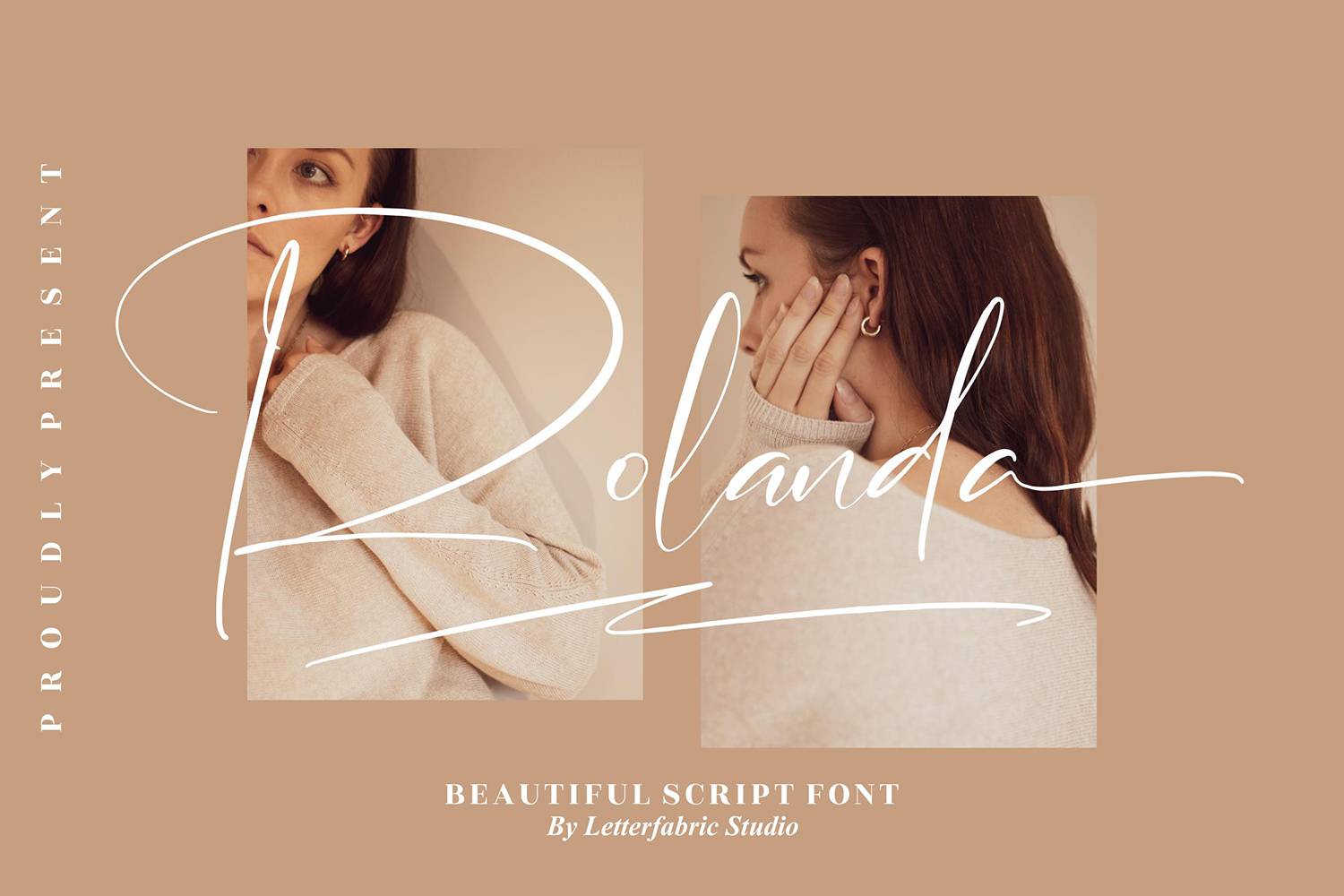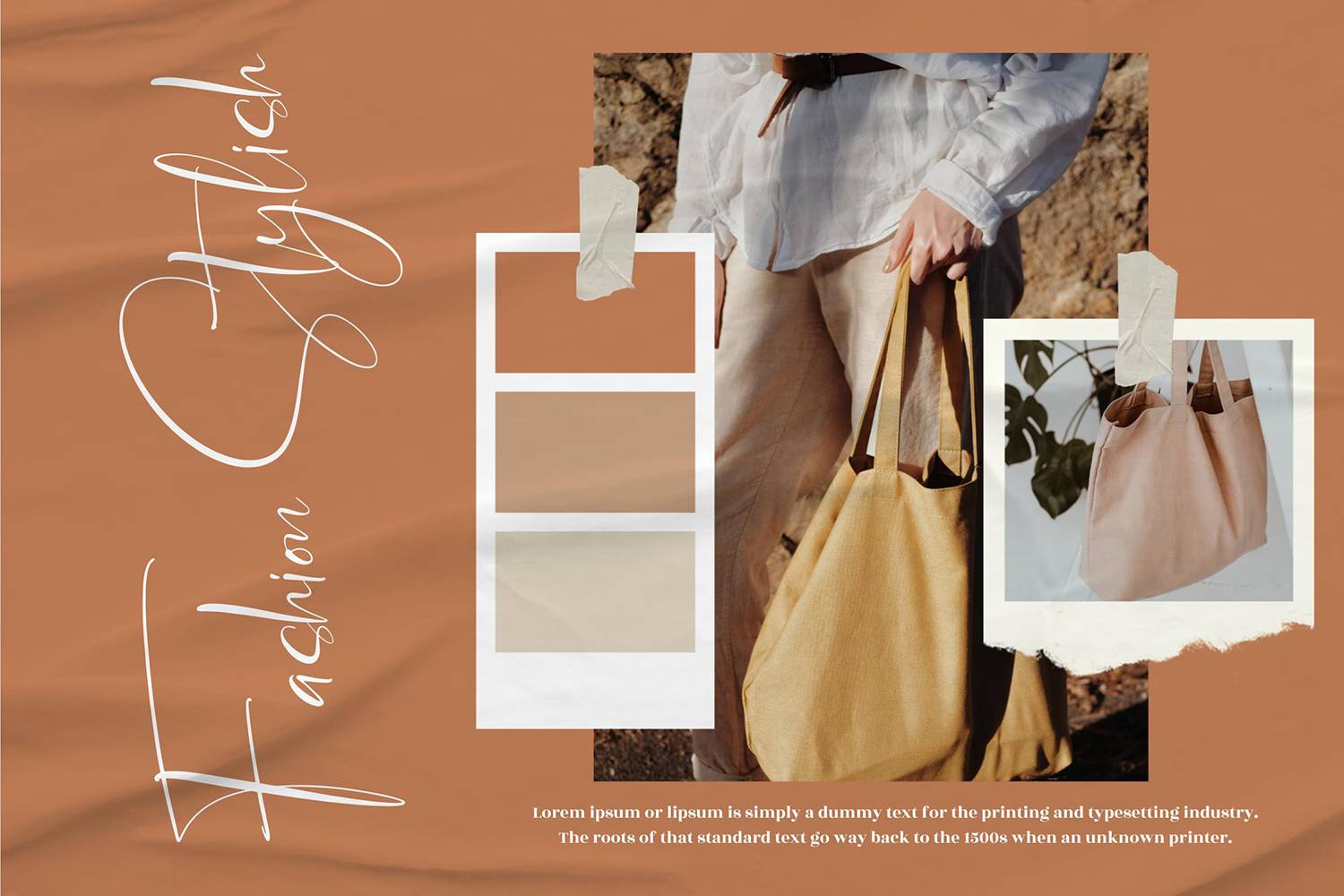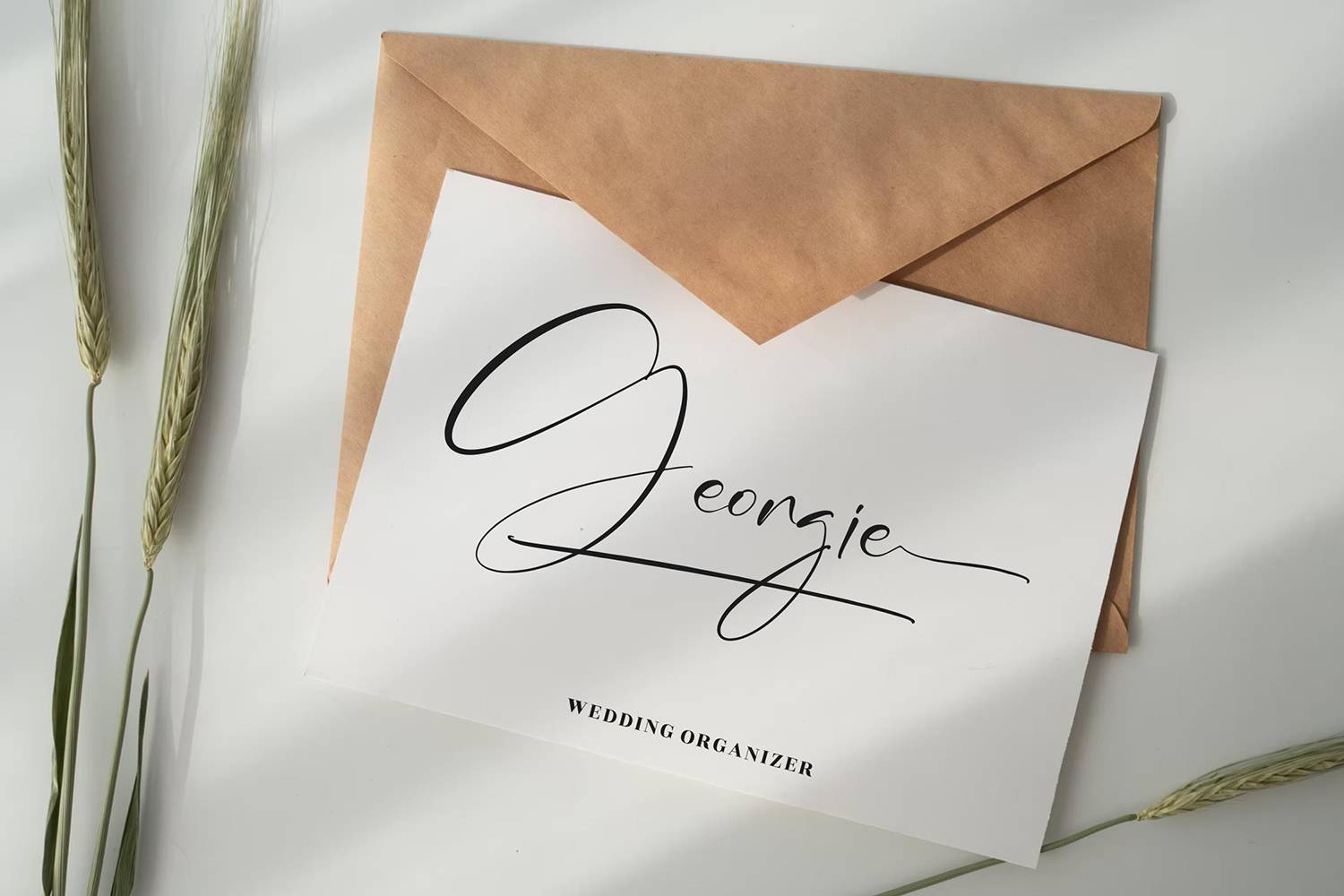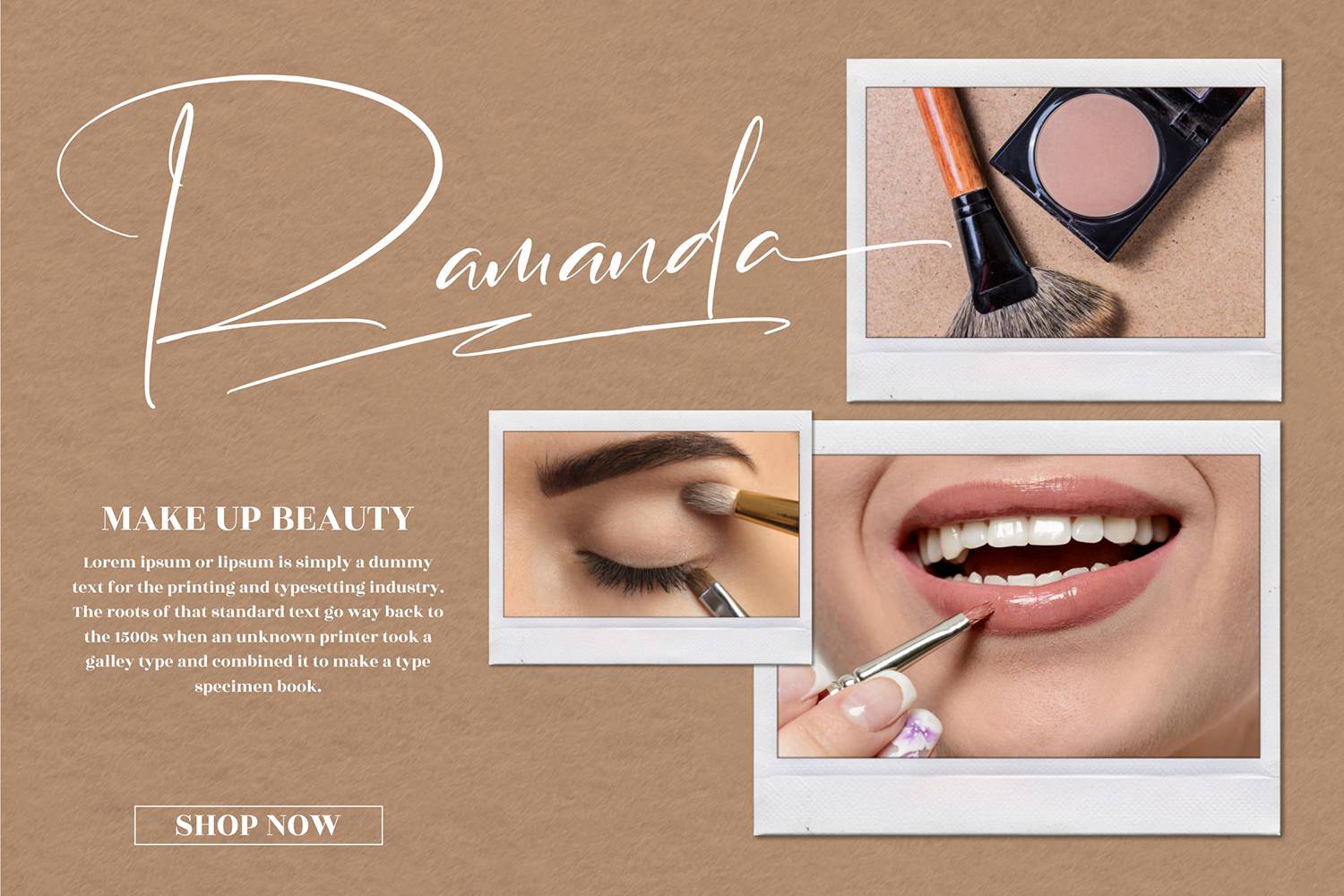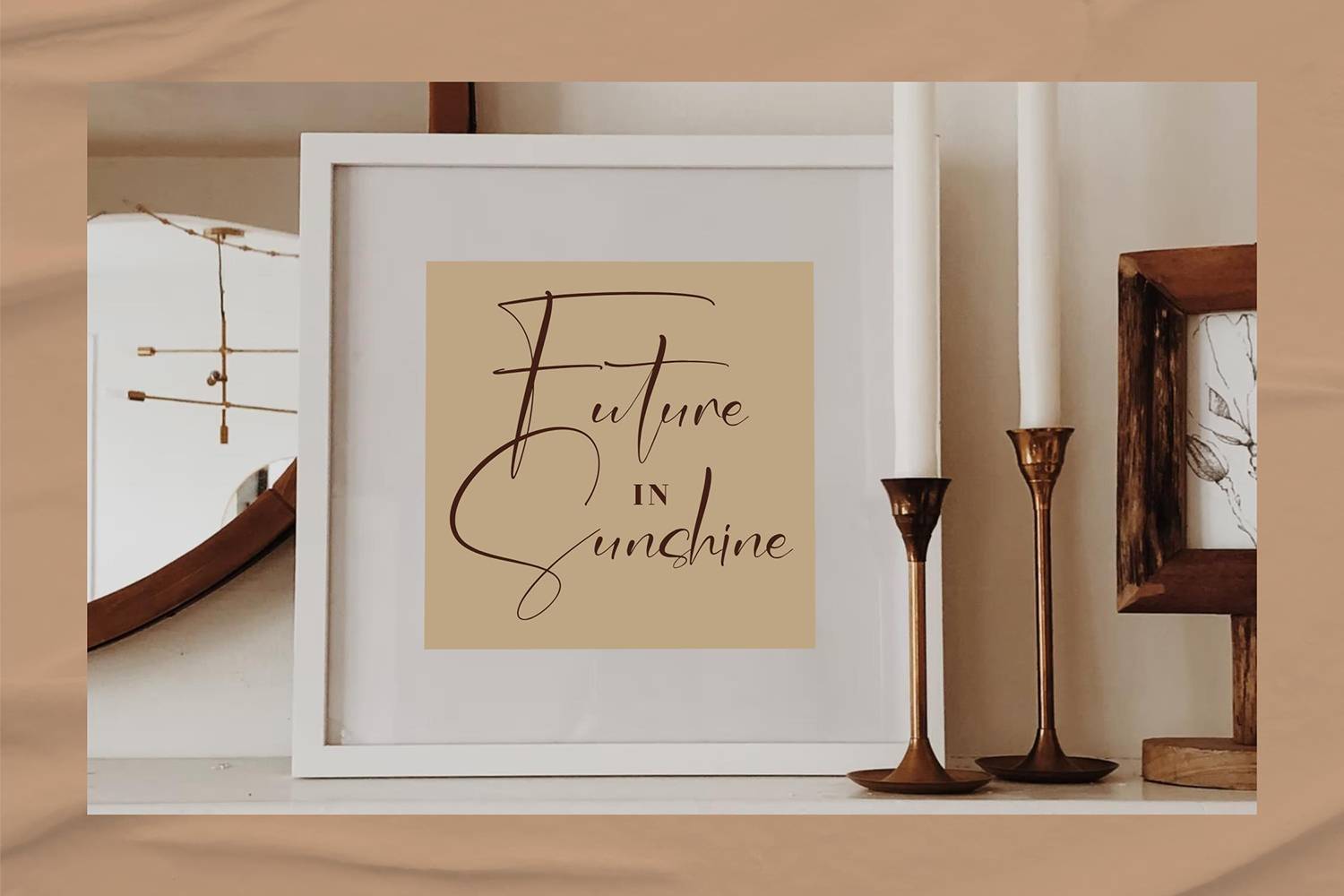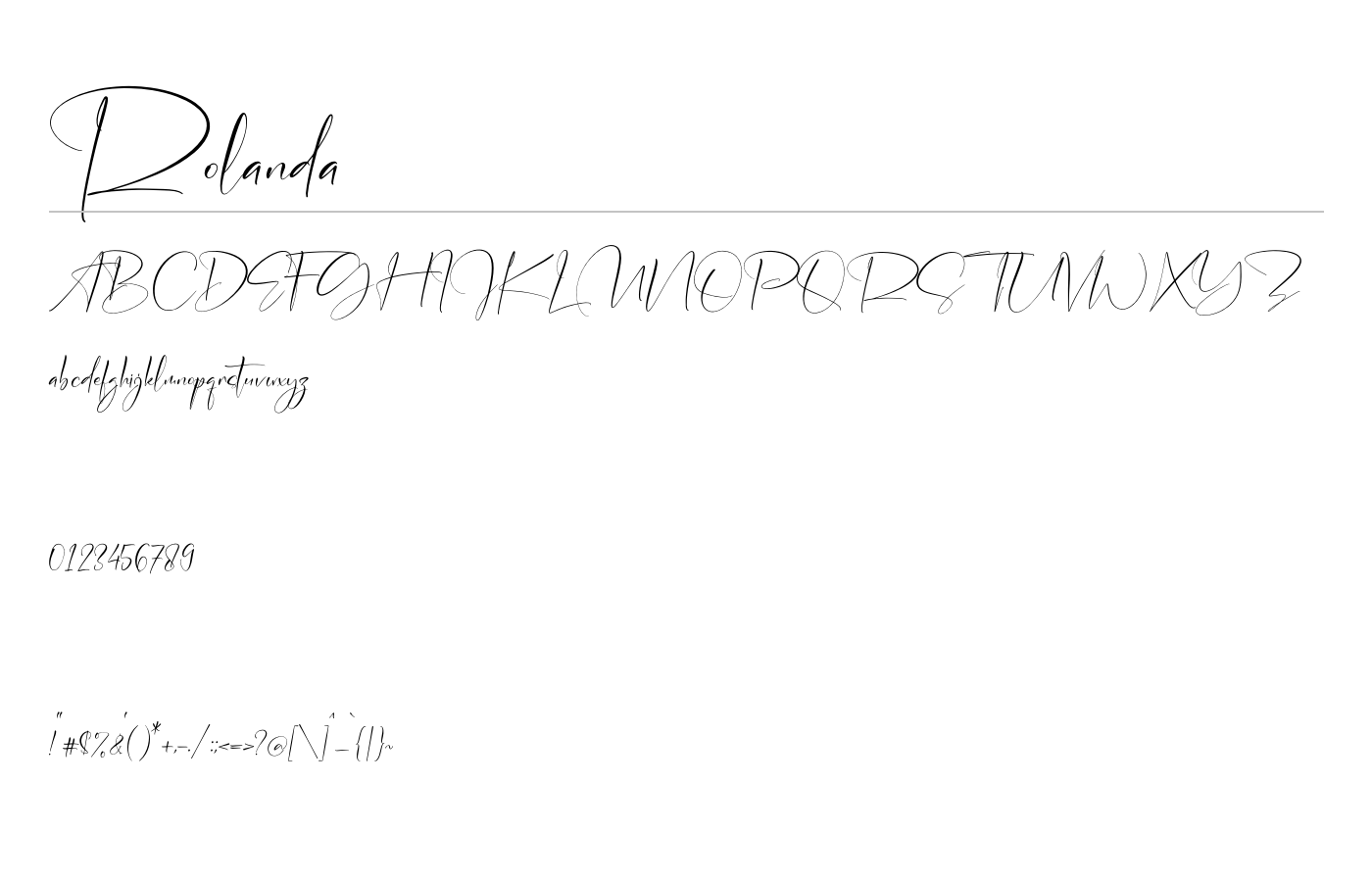
Rolanda is an elegant, lightweight script font that features delicate, flowing letterforms with a natural, handwritten feel. Its thin strokes and graceful curves make it perfect for sophisticated branding, wedding invitations, and stylish editorial use where a touch of refinement and personality is needed. This font shines best in larger sizes for headlines or decorative accents, adding a chic and artistic flair to any design.
Rolanda Font
About Rolanda Font
| Font family | Rolanda Font |